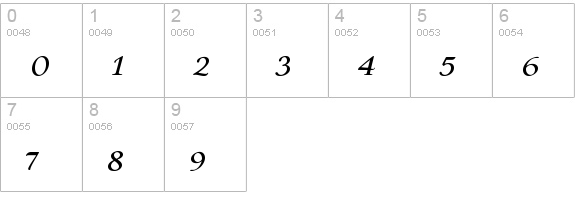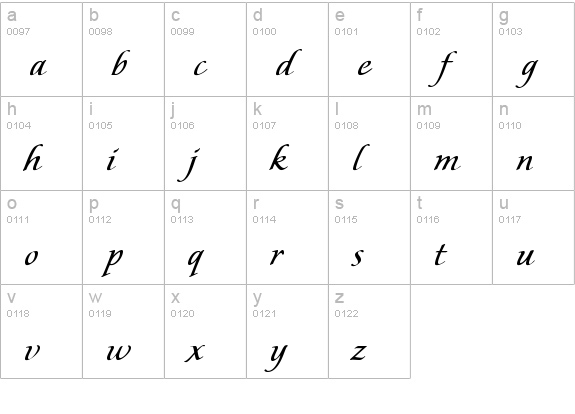
Florens LP Std Font Details
Florens LP Std is a stylish and versatile font that exudes elegance and sophistication. Its clean lines and classic design make it perfect for a wide range of projects, from branding to editorial design. This timeless font is sure to make a statement and elevate any design it is used in. The best part? Florens LP Std is available for free download at FontsMarket.com. Now you can add this beautiful font to your collection without breaking the bank. Don't miss out on the opportunity to enhance your projects with the timeless charm of Florens LP Std. Download it now and let your creativity shine!